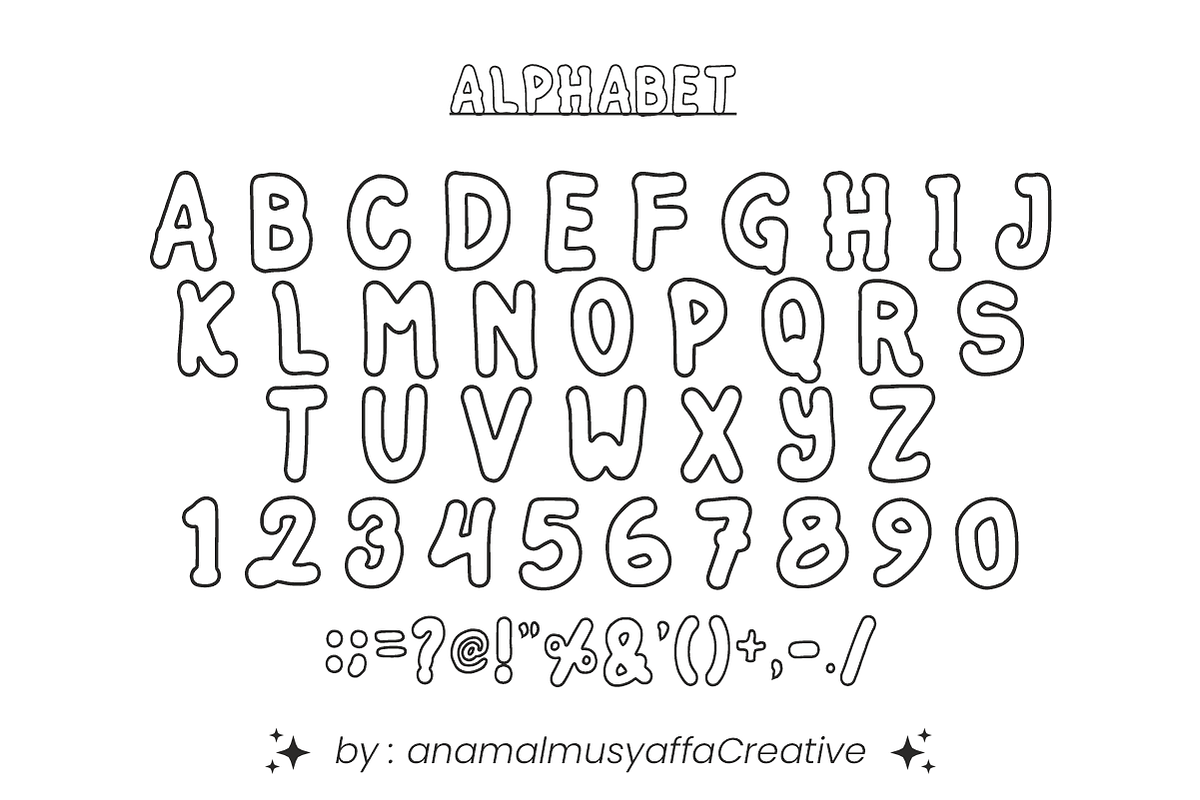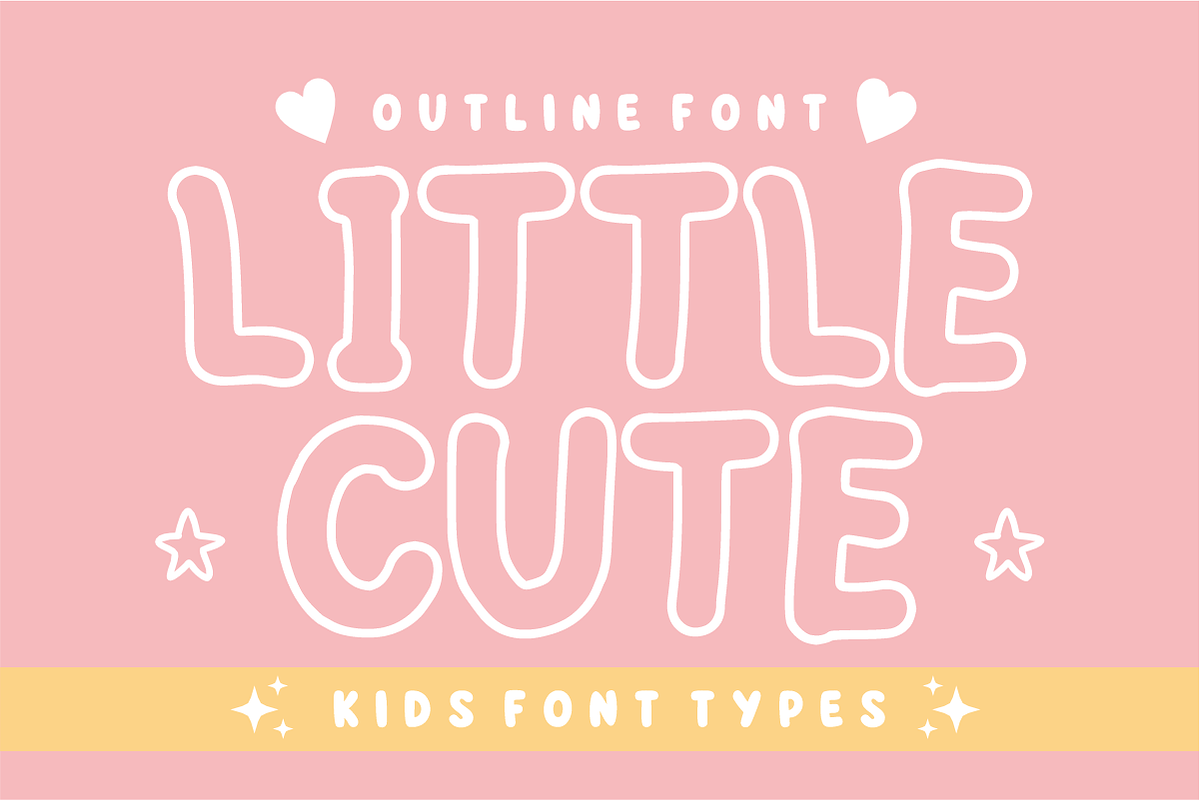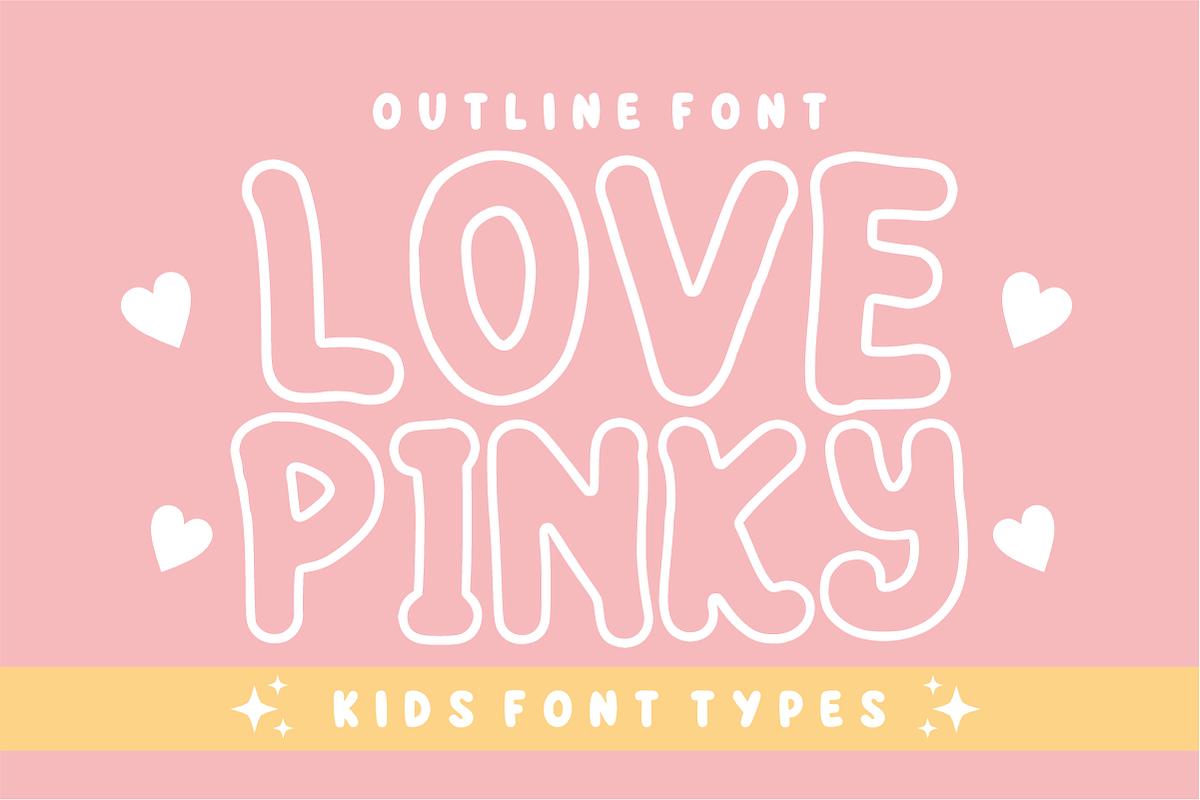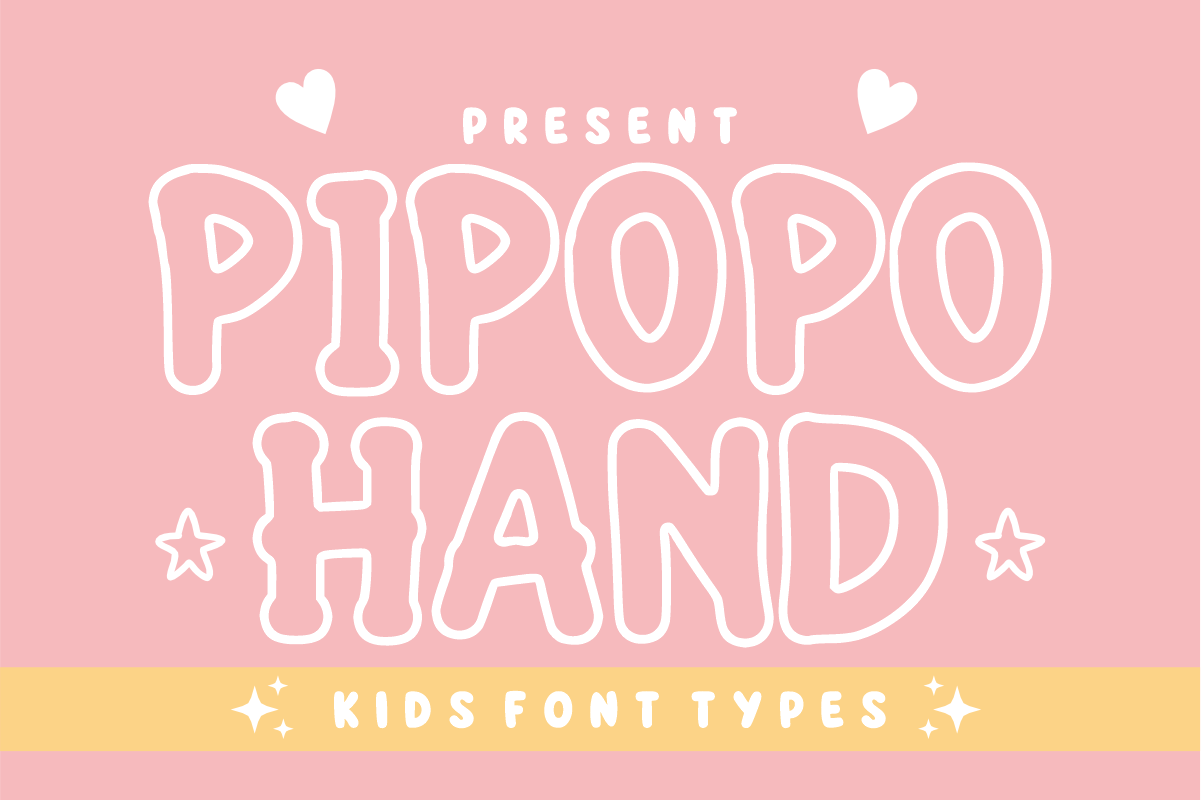
Pipopo Hand - Kids Outline Font
Pipopo Hand - Playful Kids Outline Font
Add a touch of pure joy and whimsical wonder to your designs with Pipopo Hand! this delightful display font is designed as the ultimate "Kids Font Type," featuring a bouncy, hand-drawn outline style with soft, rounded letterforms that make your headlines look instantly friendly and inviting.
Perfect for youth branding, children's publishing, and trend-focused crafting, Pipopo Hand flawlessly combines a cute cartoon aesthetic with crisp legibility. It is highly expressive, versatile, and fully optimized for seamless performance across premium digital cutting tools and professional print workflows.
All-Caps Character Set (Chunky, playful outline uppercase letters)
Numbers & Basic Punctuation (Essential, simple symbols included)
Children’s Books, Cute Comic Strips, & Playful Storybook Titles 📚
Cricut, Silhouette, & DIY Holiday Craft Sublimation Projects ✂️
Kids' Product Packaging, Toy Labels, & Nursery Room Decor 🧸
School Projects, Teacher Resources, & Kindergarten Classroom Decor 🎒
Custom Die-Cut Stickers, Social Media Graphics, & Fun Logos 📱